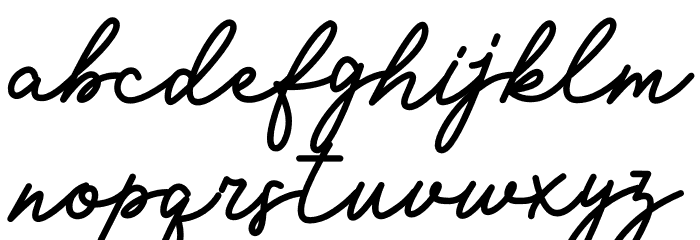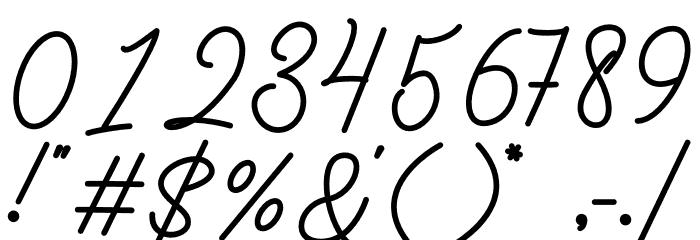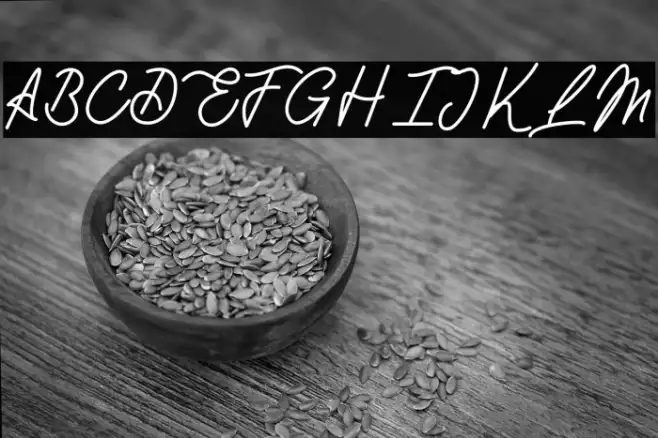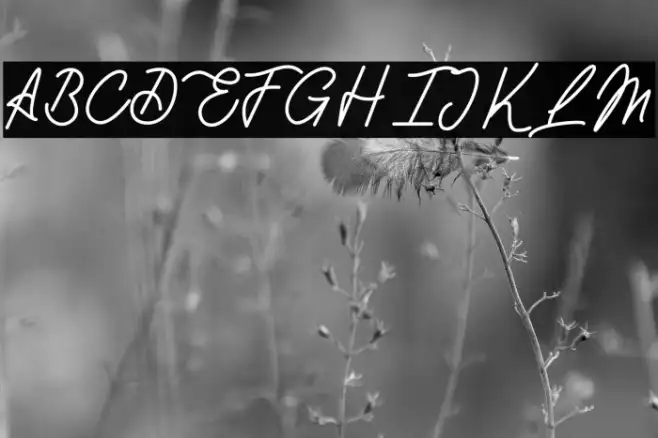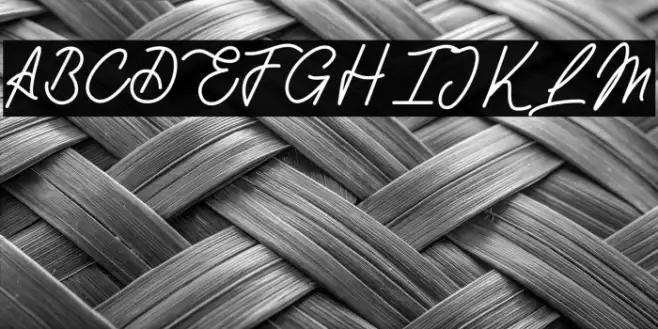
Ermia Font
This font features a flowing, cursive style that mimics elegant handwriting. The uppercase letters are slightly more structured, maintaining a consistent slant and smooth curves, while the lowercase letters exhibit a more fluid and connected form. The numerals are clear and legible, with a slight slant that complements the overall script style. Special characters are designed to blend seamlessly with the letters, maintaining the same graceful curves and slant. The font's overall appearance is sophisticated and artistic, making it suitable for projects that require a personal touch.
A cursive, handwritten-style font with elegant, flowing characters.
- Font: Ermia
- Proposed Projects: Ideal for wedding invitations, greeting cards, personal branding, and artistic projects.
- Category: Script
- Overall Style: Elegant, Artistic
- Use Case: Logos, Invitations, Artistic projects